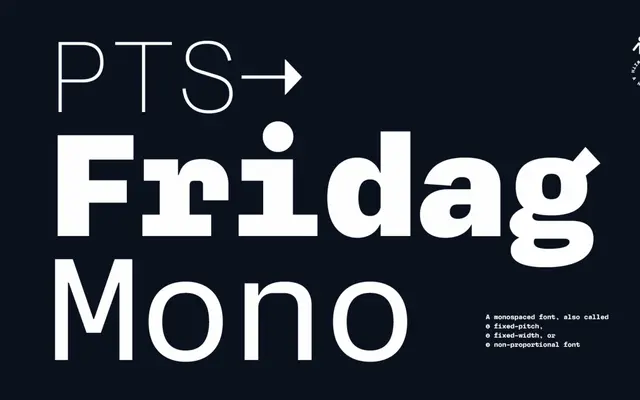
PTS Fridag Mono
A fixed-pitch family in eight weights with humanist details, covering over 200 Latin-based languages and offering stylistic alternates for a and g.
Built on a monospaced grid, PTS Fridag Mono softens the mechanical quality typical of technical mono typefaces through humanist character variants and alternate letter forms. Eight weights from ExtraLight to Black provide range, and four stylistic sets allow switching between square features, single-storey a, single-storey g and spurless u. Language support spans more than 200 Latin-based languages, with a glyph set that includes arrows, currency symbols, fractions and encircled numerals.
Explicitly described as a monospaced font with a human feel; stylistic alternates including single-storey a and g suggest humanist influences within a fixed-pitch structure.